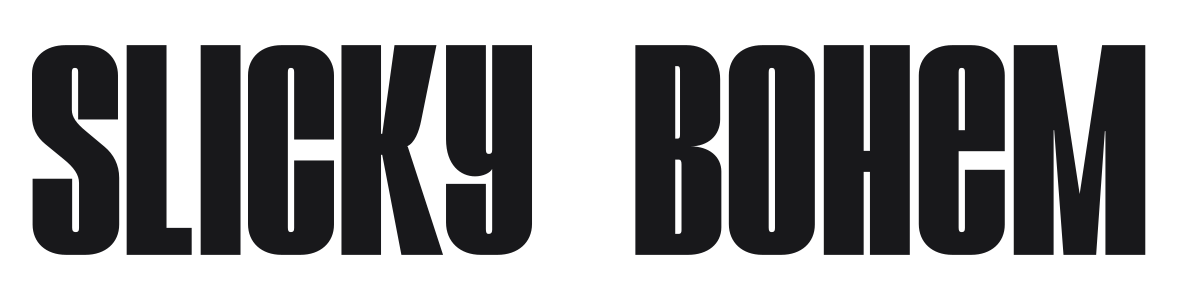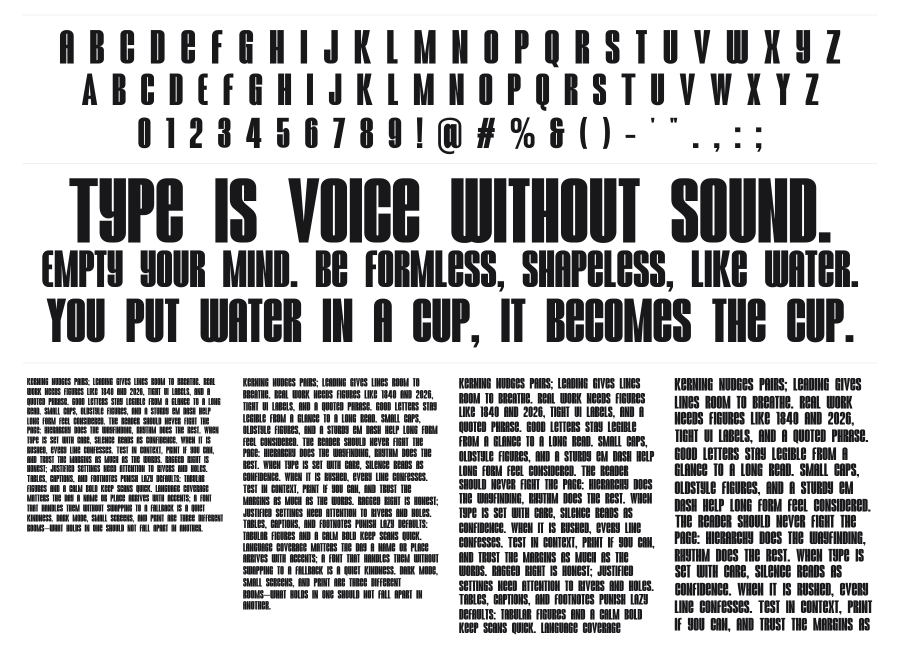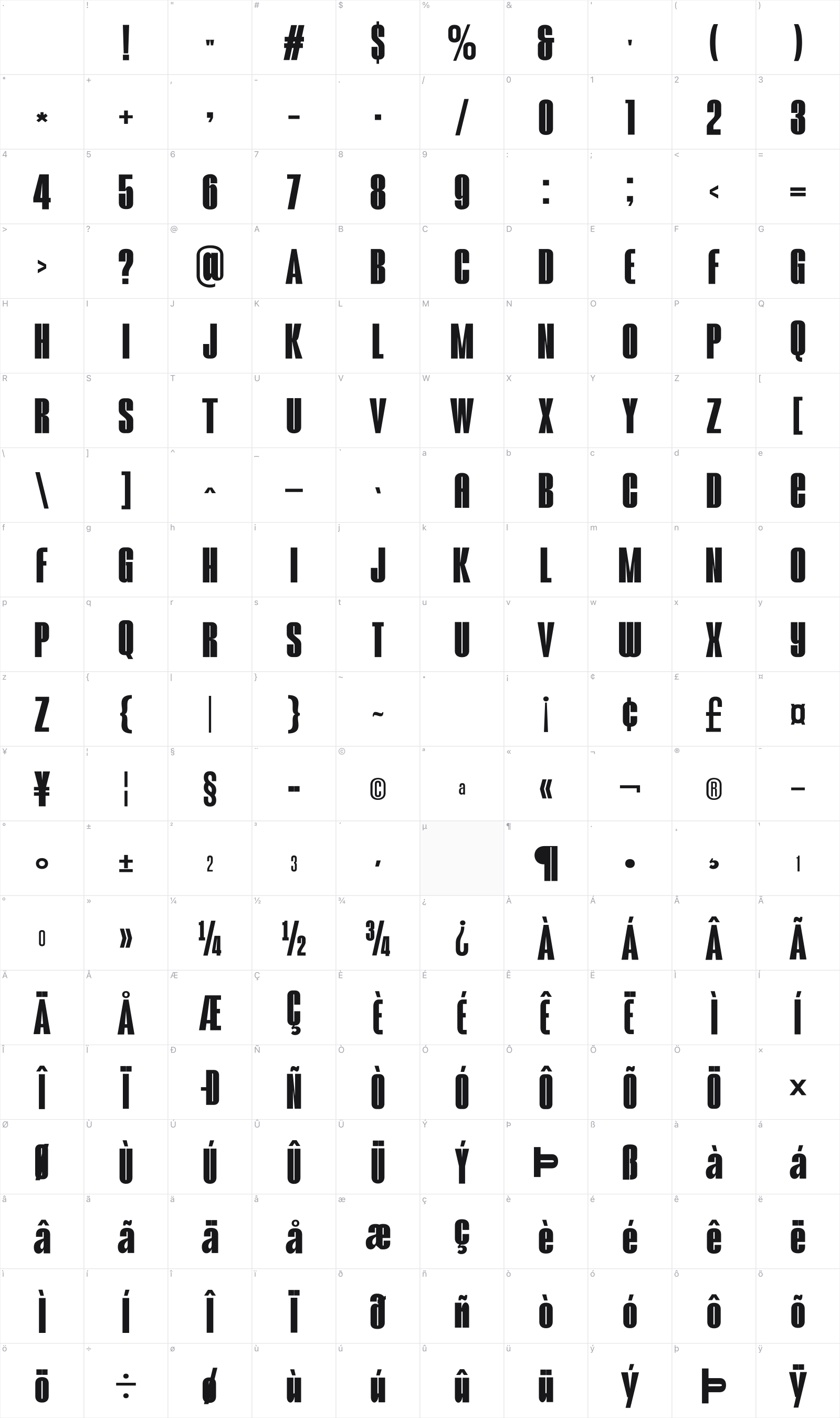
Slicky Bohem
Slicky Bohem is a heavily condensed geometric sans-serif that packs serious visual weight into an extremely narrow footprint. The tall compressed letters with strong stroke contrast give it a vintage poster intensity, and a set of discretionary ligatures adds typographic flexibility for display work. It draws naturally toward posters, logos, and apparel graphics where bold impact is the goal.